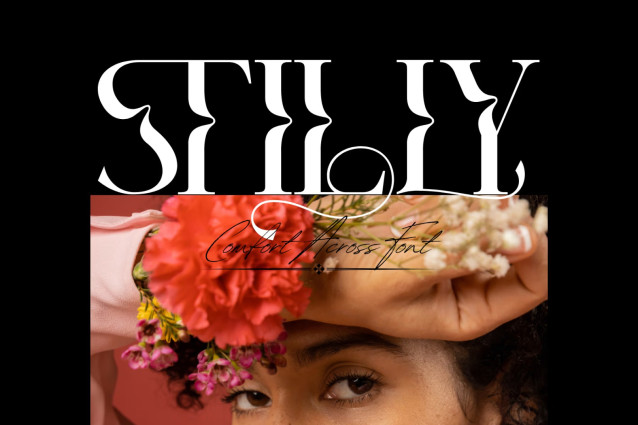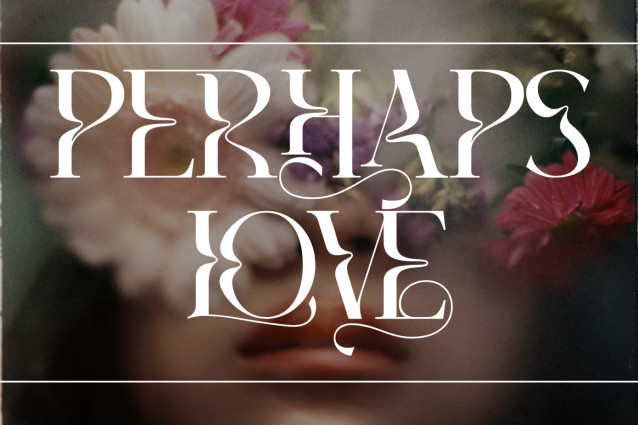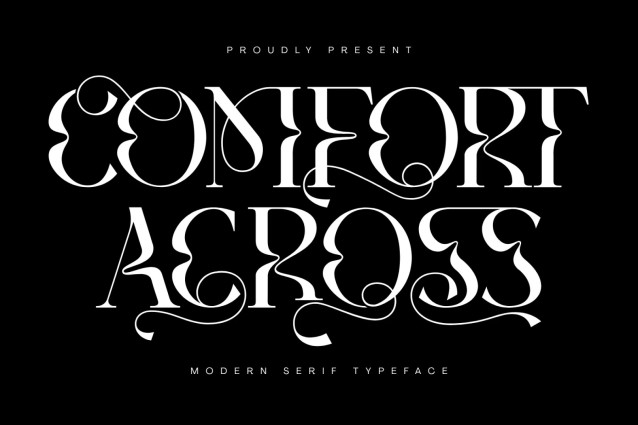
COMFORT ACROSS – LUXURY SERIF FONT
COMFORT ACROSS – LUXURY SERIF FONT is a luxurious modern serif display font that combines timeless elegance with artistic expression. Designed with refined high-contrast letterforms, graceful curves, flowing swashes, and beautifully crafted ligatures, this typeface creates a sophisticated visual experience that instantly captures attention. Every character is thoughtfully shaped to balance classic serif tradition with contemporary decorative styling, resulting in typography that feels both graceful and unforgettable.
Perfect for luxury branding, fashion editorials, cosmetic packaging, jewelry logos, wedding stationery, beauty products, boutique identities, premium invitations, magazine headlines, book covers, and elegant social media graphics, COMFORT ACROSS brings charm and sophistication to every project. Its expressive flourishes, stylish terminals, and refined craftsmanship make it an ideal choice for designers seeking a font that communicates elegance, romance, and premium quality with a distinctive artistic personality.